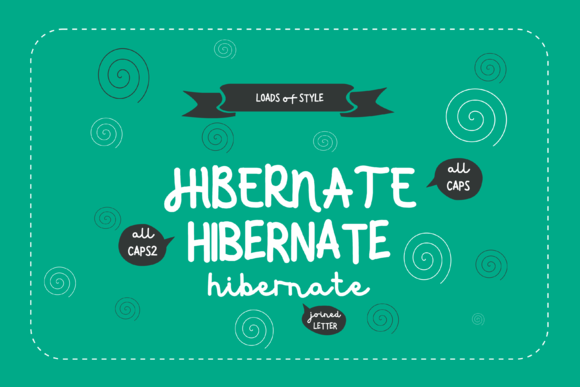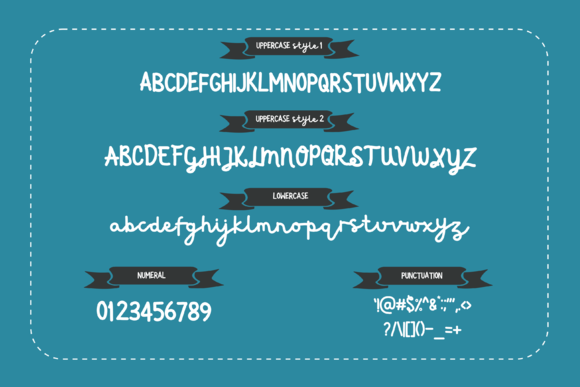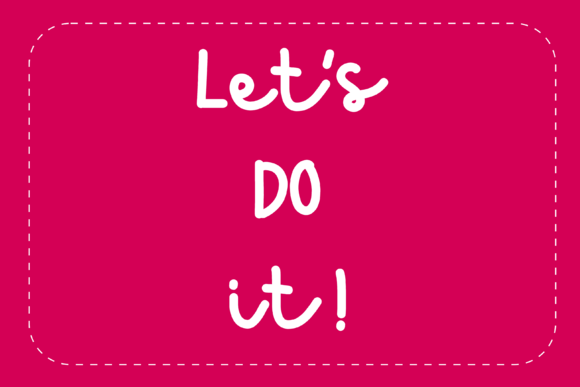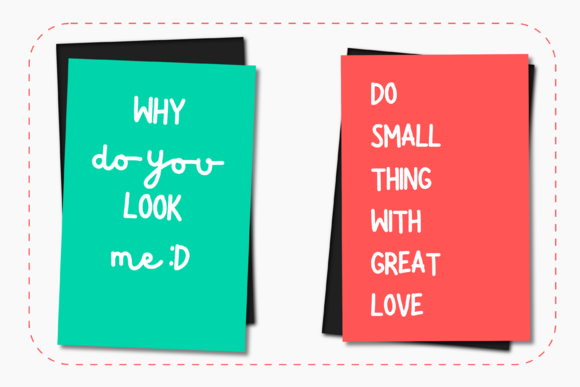
Introduction to Hibernate Font
Hibernate is a beautiful typeface which can be used for various purposes such as: headings, logos, badges, posters, book covers, news papers and much more.
Hibernate is a beautiful typeface which can be used for various purposes such as: headings, logos, badges, posters, book covers, news papers and much more!
Key Features of Hibernate Font
Why Choose Hibernate Font?
Hibernate Font offers exceptional quality and versatility, making it a valuable addition to your design toolkit. Whether you’re creating for personal projects or commercial use, Hibernate Font delivers professional results.